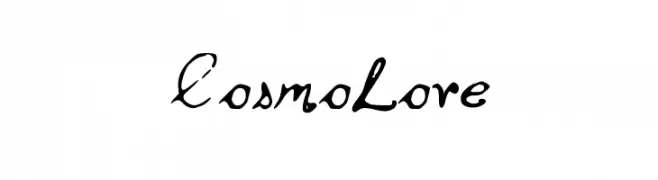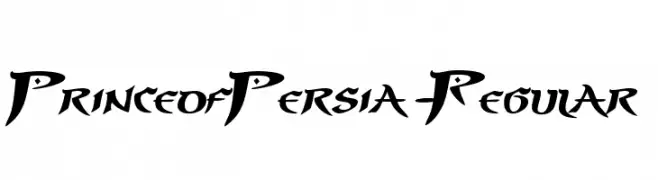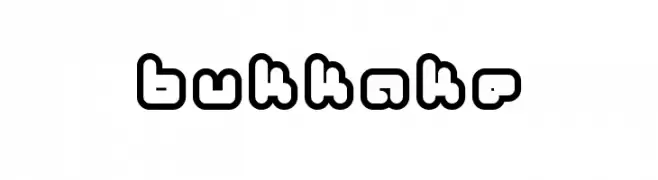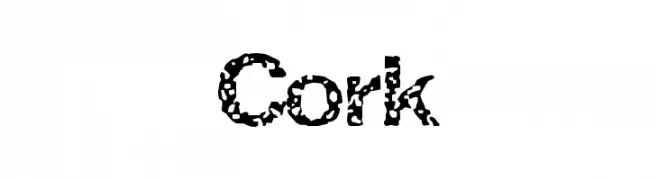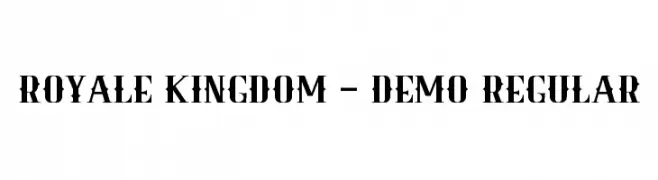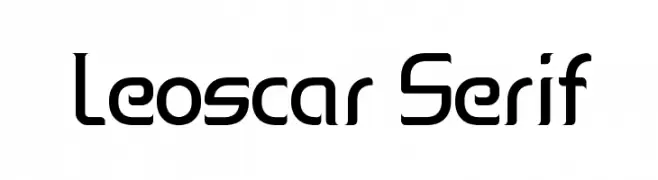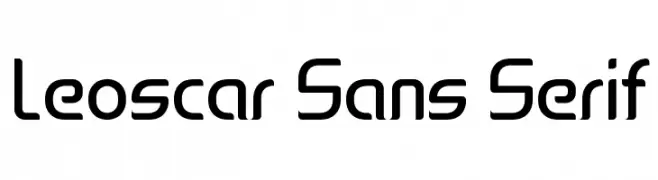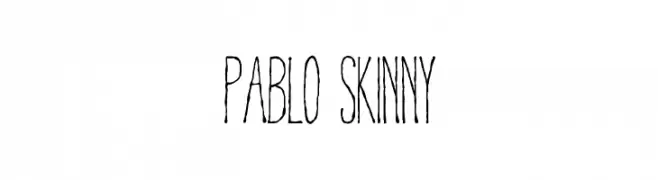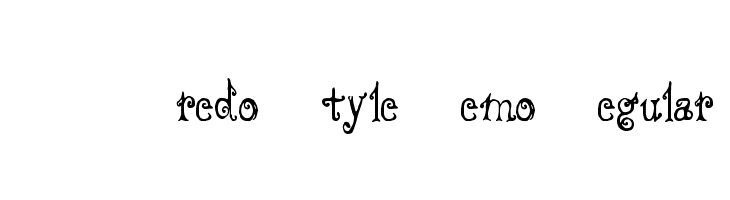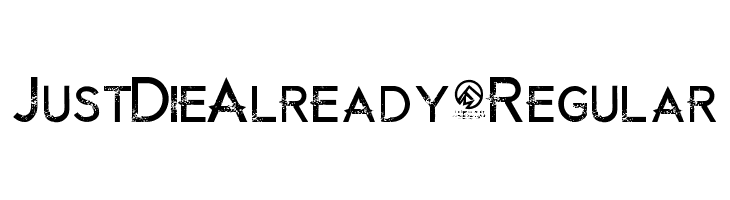
A dynamic, fluid script font with a handwritten appearance.
A whimsical, cursive-like font with playful, fluid strokes and unique flourishes.
A bold, dynamic font with sharp, angular lines and high contrast, inspired by ancient scripts.
Playful, rounded sans-serif with bold outlines and geometric shapes.
A bold, textured font with a cork-like pattern, perfect for creative projects.
A bold, decorative font with gothic influences and sharp serifs.
A playful and casual handwritten font with fluid, dynamic strokes.
A modern, geometric font with a futuristic and structured design.
A modern, geometric sans-serif font with rounded edges.
A tall, narrow, hand-drawn font with a whimsical and artistic style.